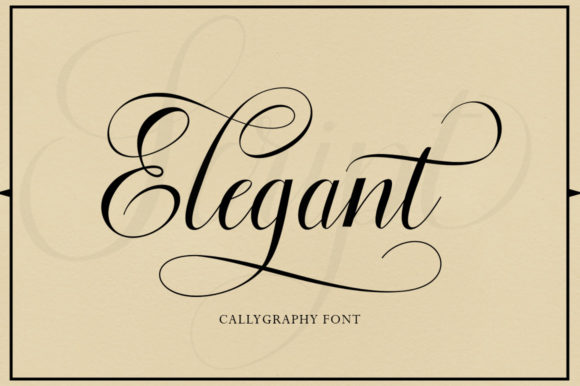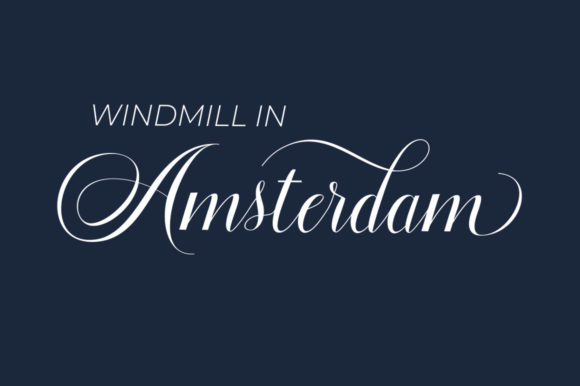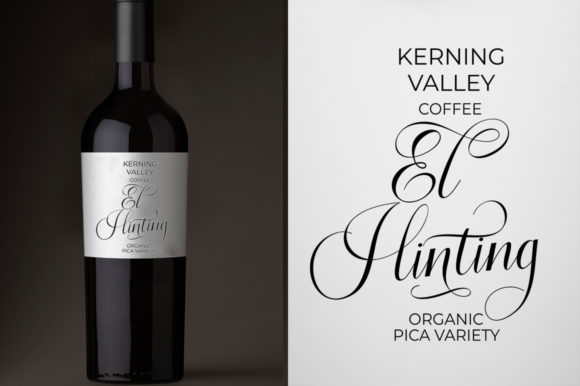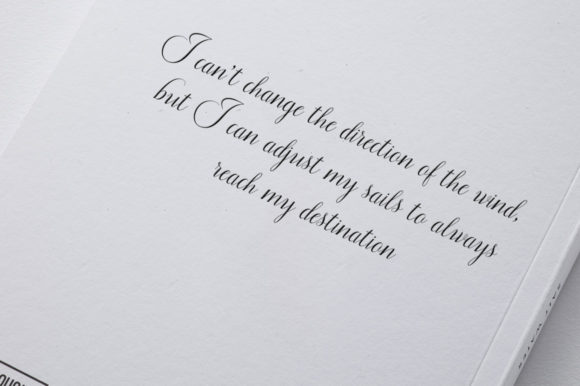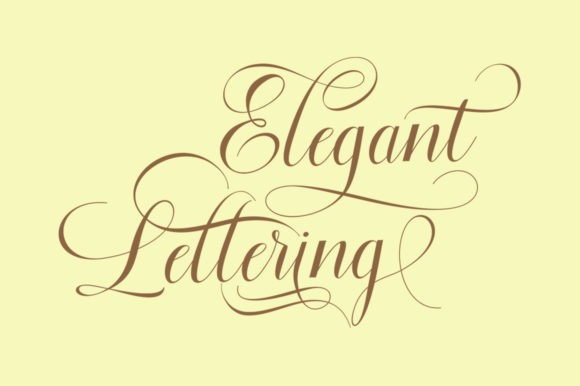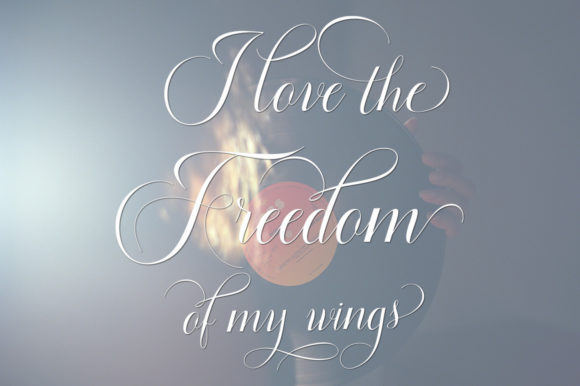
Introduction to Floural Script Font
There’s nothing quite like the feeling of discovering the perfect design element for your creative project. It’s like finding the missing piece of a puzzle, and suddenly everything comes together in a beautiful way. For designers, this moment is often a turning point, and it’s what makes all the hard work worth it. One design element that can elevate any project is the Floural Script Font, a stunning calligraphy script that exudes elegance and sophistication.
With its classy style and luxurious feel, the Floural Script Font is a valuable resource for designers looking to add a touch of refinement to their work. Whether you’re working on a high-end branding project or a simple invitation, this font is sure to impress. And the best part? It’s available for free download, making it an accessible design resource for creatives of all levels.
From transparent backgrounds to high-quality vector files, the Floural Script Font is a versatile design element that can be used in a variety of contexts. So why settle for a generic font when you can have a beautiful, one-of-a-kind script that sets your design apart?
Key Features of Floural Script Font
- Unique, hand-drawn design with a floral twist, perfect for creative projects and adding a touch of elegance to your work.
- Features a beautiful, cursive script with intricate details, making it an ideal choice for wedding invitations, greeting cards, and other creative projects.
Honest Review: Floural Script Font
I recently had the opportunity to work with the Floural Script Font, and I must say it’s been a great addition to my design resource library. ✨ The high quality of this font is evident in its beautiful, flowing script design that adds a touch of elegance to any creative project.
- High-quality design: The Floural Script Font boasts intricate details and a smooth, even texture that makes it perfect for a variety of design applications.
One potential limitation I’ve noticed is that the font can be quite large in file size, which may be a concern for designers working with limited storage space. ⚠️ However, the quality of the font far outweighs this minor inconvenience.
Overall, I’m thoroughly impressed with the Floural Script Font. Its high-quality design, free availability, and transparent background make it an excellent addition to any designer’s library. Whether you’re working on a high-end creative project or a simple design concept, this font is sure to elevate your work to the next level.
The Floural Script Font is ideal for wedding invitations, event graphics, and branding materials. Its elegant and sophisticated design makes it a popular choice for creative projects that require a high-quality design resource.